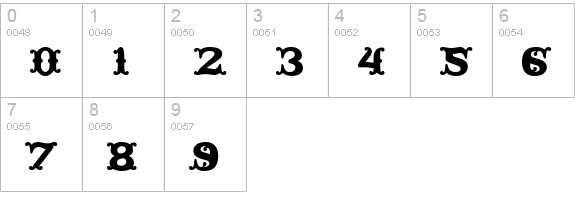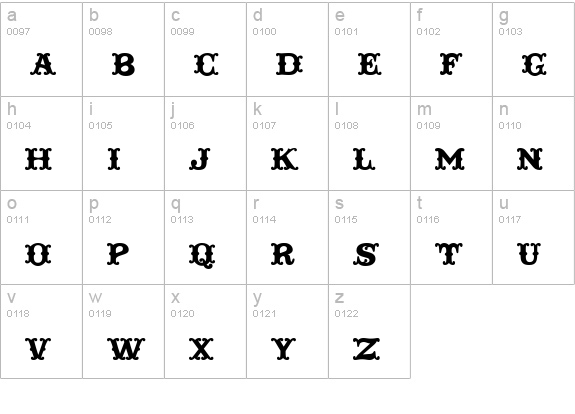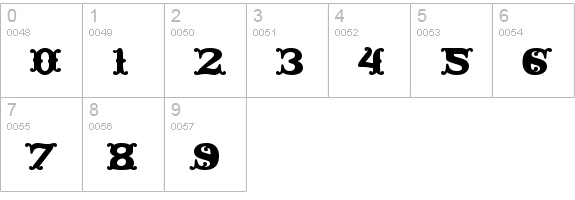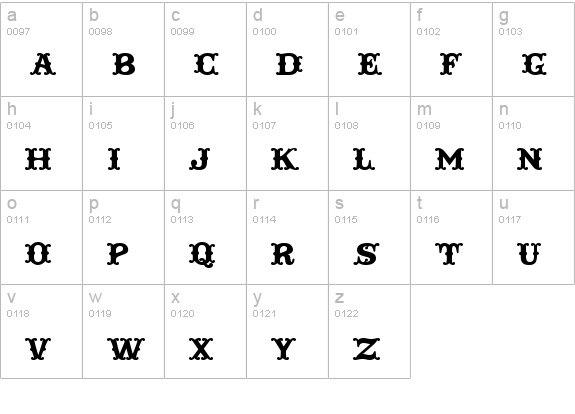
Taqueria Black is a maximum-weight, dramatic variant in the Taqueria typeface family \xE2\x80\x94 well suited to maximum-impact headlines, posters, and packaging.
Introducing Taqueria Black font, a bold and captivating typeface that exudes a sense of delicious charm and authentic Mexican flavor. With its strong and distinctive letterforms, this font is perfect for adding a touch of boldness and character to any design project. Taqueria Black font features an elegant balance between sharp angles and smooth curves, creating a harmonious blend of traditional and modern aesthetics. Its bold weight commands attention, making it ideal for headlines, logos, branding materials, and more. What sets Taqueria Black font apart is its versatility and versatility. Whether you're designing a menu for a trendy taqueria, creating eye-catching social media graphics, or crafting a vibrant poster for a fiesta, this font will elevate your design with its bold and unique style. But what makes Taqueria Black font even more exciting is that it is freely available to download at FontsMarket.com. That's right, you can add this stunning font to your collection without any cost. It's a fantastic opportunity to enhance your designs with a typeface that combines elegance, playfulness, and a hint of spice. So why wait? Embrace the vibrancy and energy of Taqueria Black font today, and let your designs sizzle with creativity and authenticity. Download it for free at FontsMarket.com and unlock a world of possibilities for your design projects.